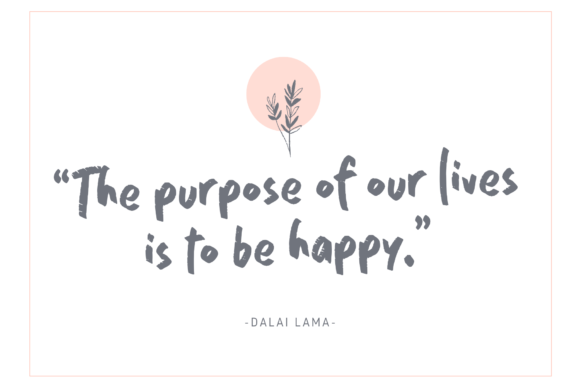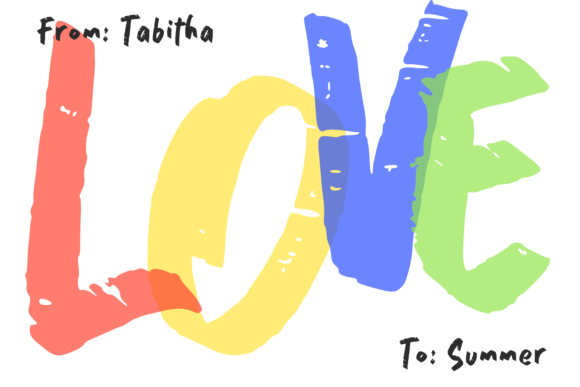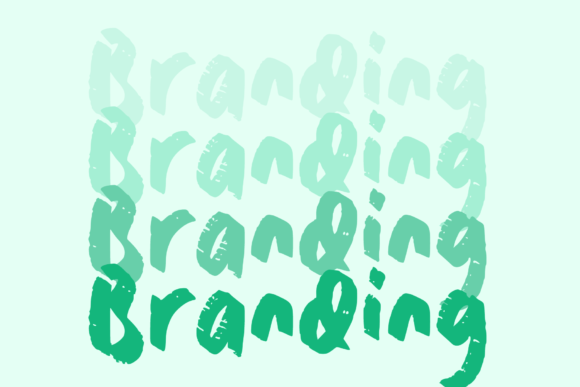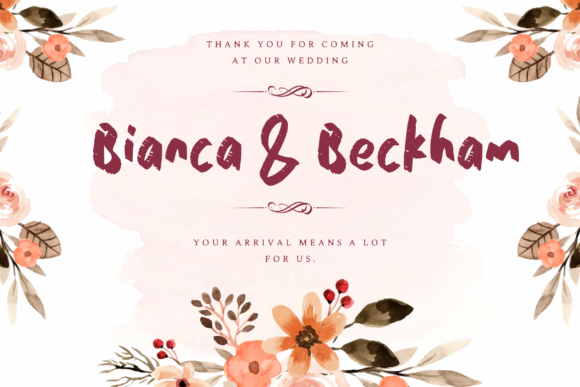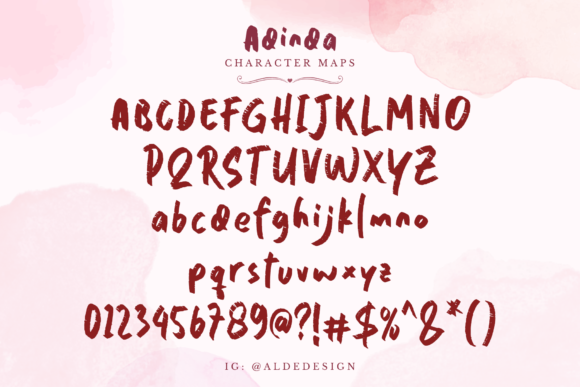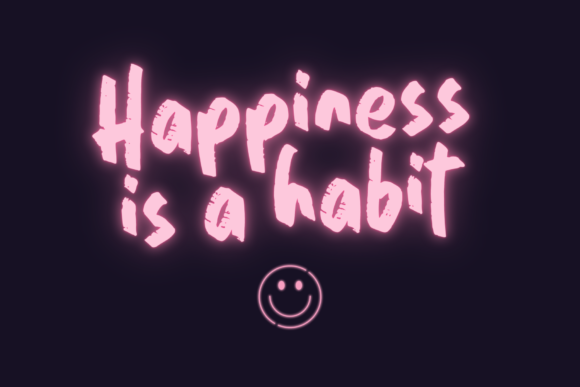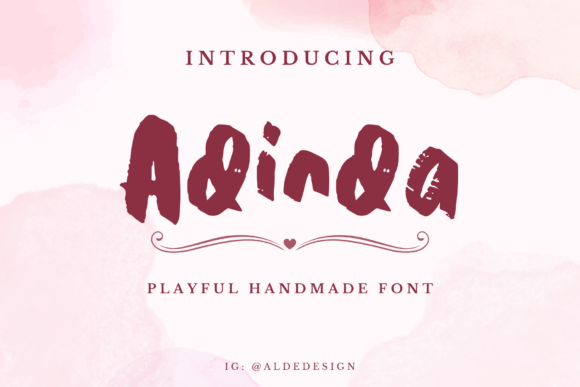
Introducing Adinda Font: The Charming Brushed Script Font
Are you looking for a font that can add a touch of playfulness and elegance to your creative projects? Look no further than Adinda Font! This lovely brushed script font features charming, playful characters that seem to dance along the baseline, making it perfect for a wide range of design applications.
What Makes Adinda Font Special?
Adinda Font is a unique and versatile font that offers a range of features that make it stand out from other fonts. Here are some of its key characteristics:
• Brushed Script Style: Adinda Font has a beautiful brushed script style that gives it a personal and handmade feel. The font’s characters are designed to look like they were written with a brush, adding a touch of warmth and elegance to any design.
• Charming and Playful Characters: The font’s characters are designed to be charming and playful, with a sense of movement and energy. They seem to dance along the baseline, adding a touch of whimsy and fun to any design.
• PUA Encoded: Adinda Font is PUA (Private Use Area) encoded, which means that you can access all of the amazing glyphs and ligatures with ease. This makes it easy to use the font in a variety of design applications, including graphic design, digital art, and craft projects.
Uses for Adinda Font
Adinda Font is a versatile font that can be used in a wide range of design applications, including:
• Graphic Design: Use Adinda Font to create stunning graphic designs, including posters, flyers, brochures, and more.
• Digital Art: Add Adinda Font to your digital art projects, including illustrations, paintings, and mixed media art.
• Craft Projects: Use Adinda Font to create beautiful craft projects, including handmade cards, scrapbooking, and journaling.
• Signage and Displays: Use Adinda Font to create eye-catching signage and displays, including store signs, event signs, and more.
Tips for Using Adinda Font
Here are some tips for using Adinda Font in your design projects:
• Experiment with Different Sizes: Adinda Font looks great in a variety of sizes, from small and delicate to large and bold. Experiment with different sizes to find the one that works best for your project.
• Pair with Other Fonts: Adinda Font pairs well with a range of other fonts, including serif and sans serif fonts. Experiment with different font combinations to find the one that works best for your project.
• Use in Combination with Images: Adinda Font looks great in combination with images, including photographs, illustrations, and graphics. Use the font to add text and context to your images.
Adinda Font is a lovely brushed script font that features charming, playful characters that seem to dance along the baseline. With its PUA encoding and range of glyphs and ligatures, it’s easy to use and versatile. Whether you’re a designer, crafter, or DIY enthusiast, Adinda Font is a great addition to your font collection. So why not give it a try and see how it can add a touch of elegance and playfulness to your creative projects?
• What is Adinda Font?: Adinda Font is a lovely brushed script font featuring charming, playful characters that seem to dance along the baseline.
• Is Adinda Font PUA encoded?: Yes, Adinda Font is PUA encoded, which makes it easy to access all of the amazing glyphs and ligatures.
• What can I use Adinda Font for?: Adinda Font can be used in a wide range of design applications, including graphic design, digital art, craft projects, and more.